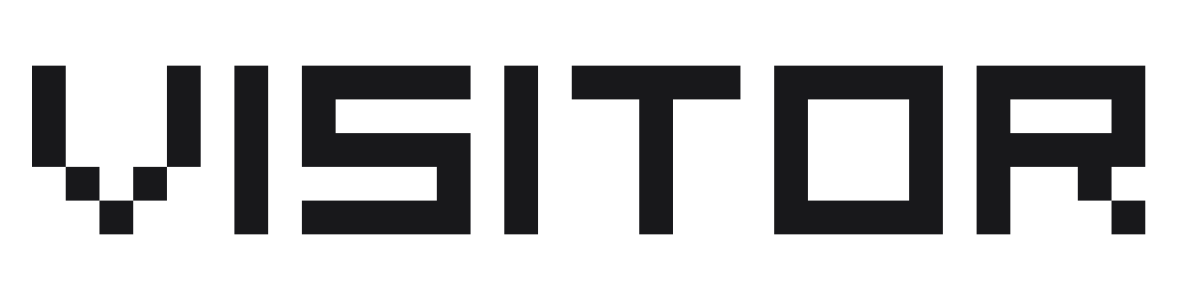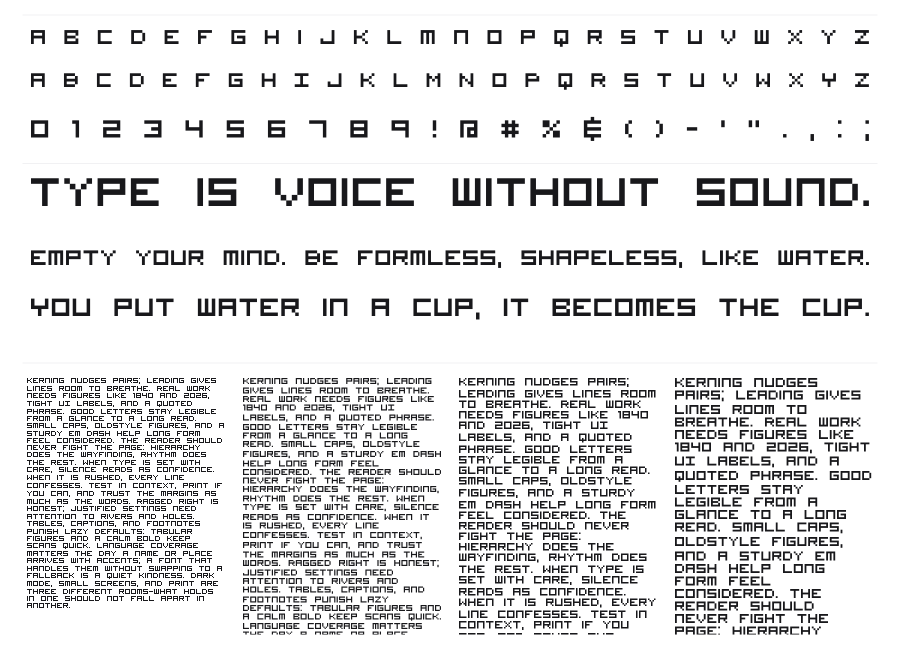
Visitor
by �nigma
Visitor is a bold pixel-bitmap display font built entirely on a square grid, mimicking the look of early video game and low-resolution screen text. Every stroke is uniform and block-like, with no curves and no contrast, giving it an unambiguous 8-bit personality. It works best large, where the grid structure reads as intentional rather than coarse.